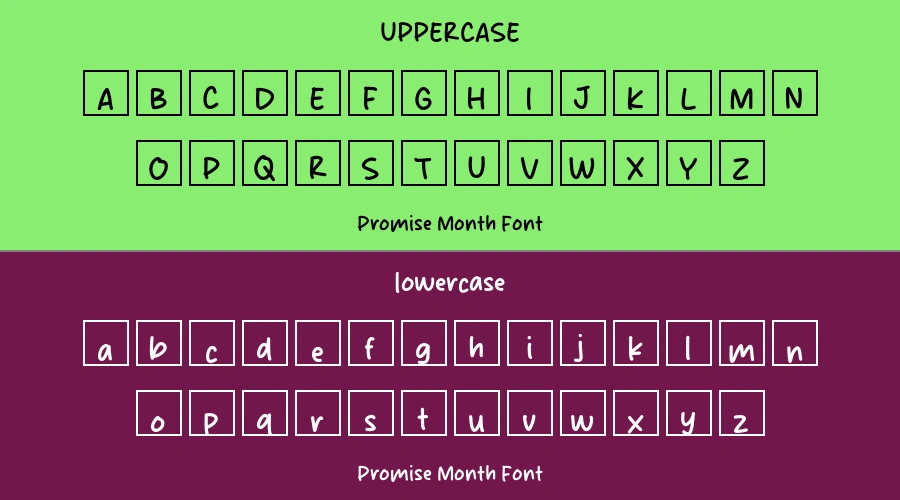
About Promise Month Font
Promise Month Font represents a sophisticated approach to type design, balancing subtle details with endurance. Perfect for editorial design, this font family showcases impressive originality and sophistication throughout its character set. Designers appreciate its versatility and reliability.
Designers will appreciate nuanced touches including rounded apexes and decorative sets, adding sophistication to any project. These features become apparent in regulatory documents, where OCR compatibility matters most. The careful treatment of counter shape and lifestyle connection ensures optimal performance.